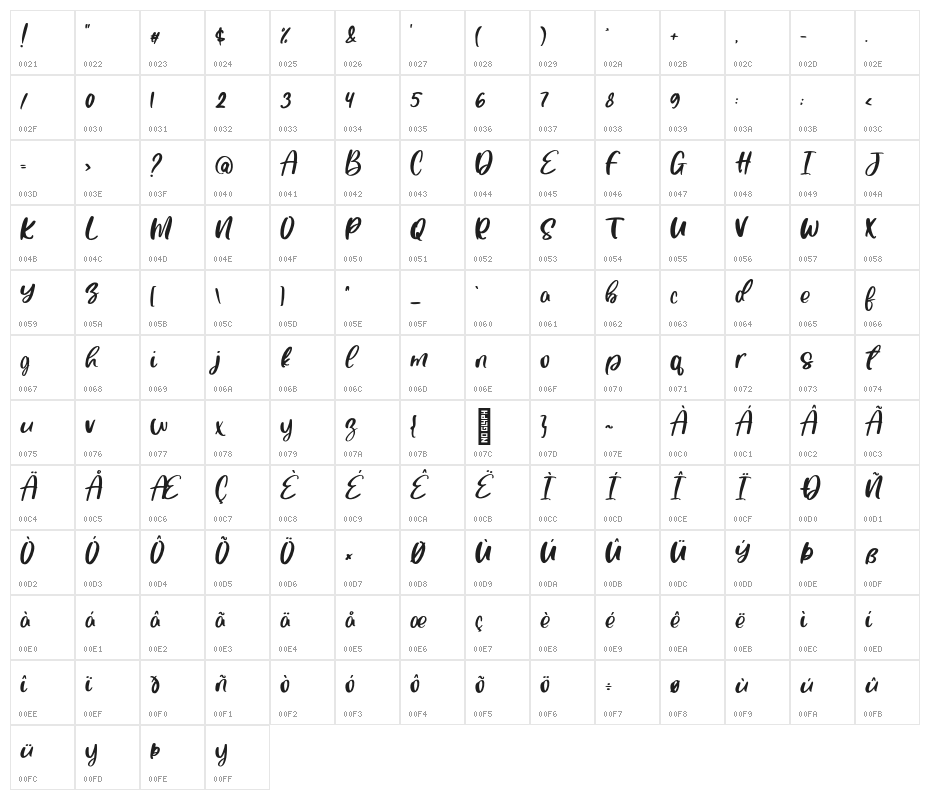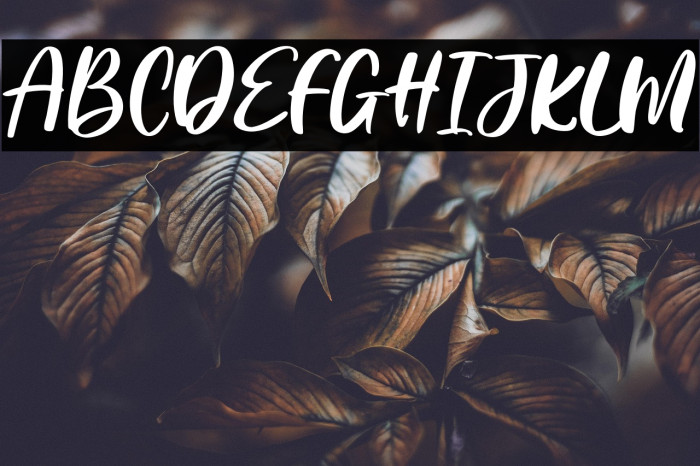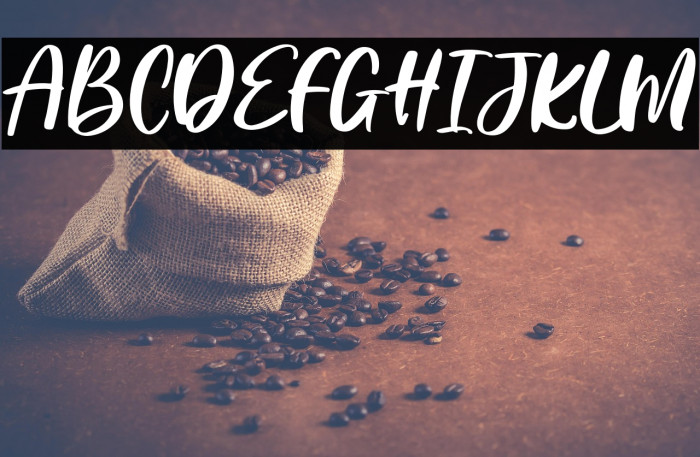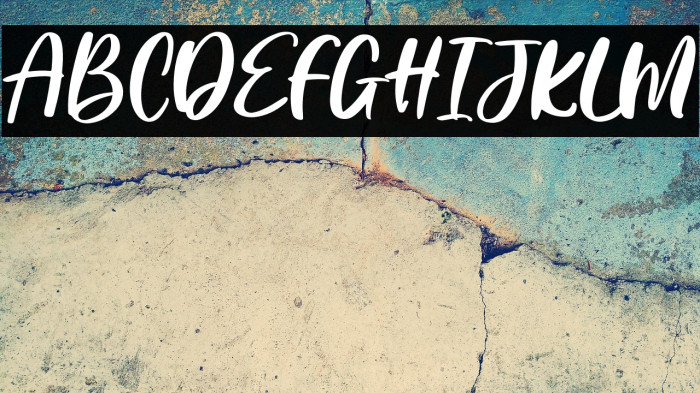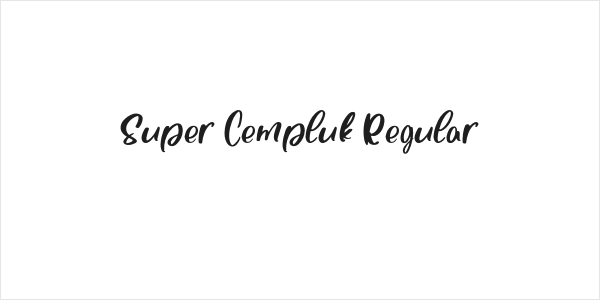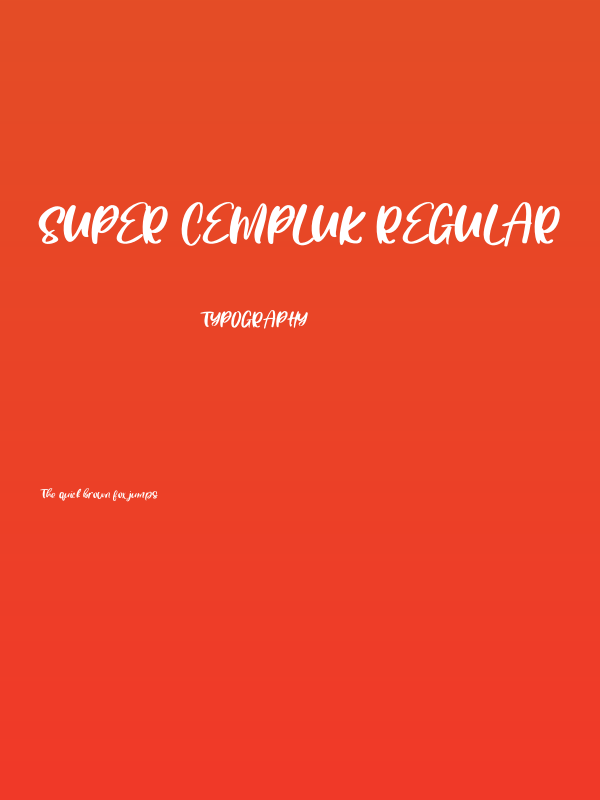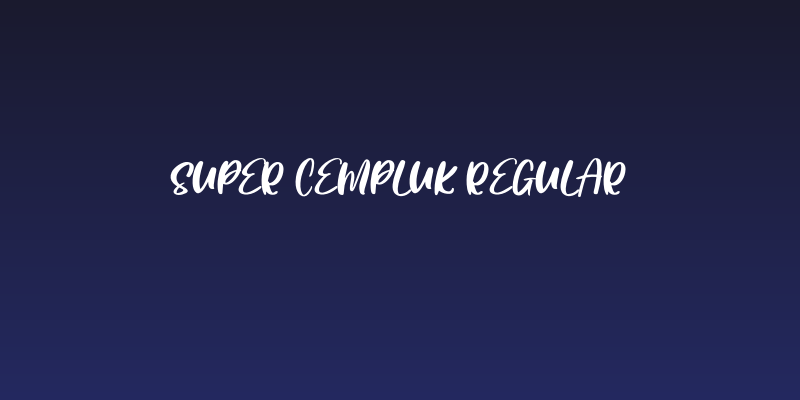
Super Cempluk Regular Font
Super Cempluk Regular Description
This font features a bold and expressive handwritten style, characterized by its fluid and dynamic strokes. The uppercase letters are tall and slightly slanted, giving a sense of movement and energy. The lowercase letters maintain a consistent flow, with some characters featuring unique loops and curves that add to the overall playful aesthetic. The numerals are bold and maintain the same lively style, making them stand out. Special characters are well-integrated, matching the font's overall theme. This font is perfect for projects that require a personal and artistic touch.
| Proposed Projects | Ideal for greeting cards, invitations, branding, and social media graphics. |